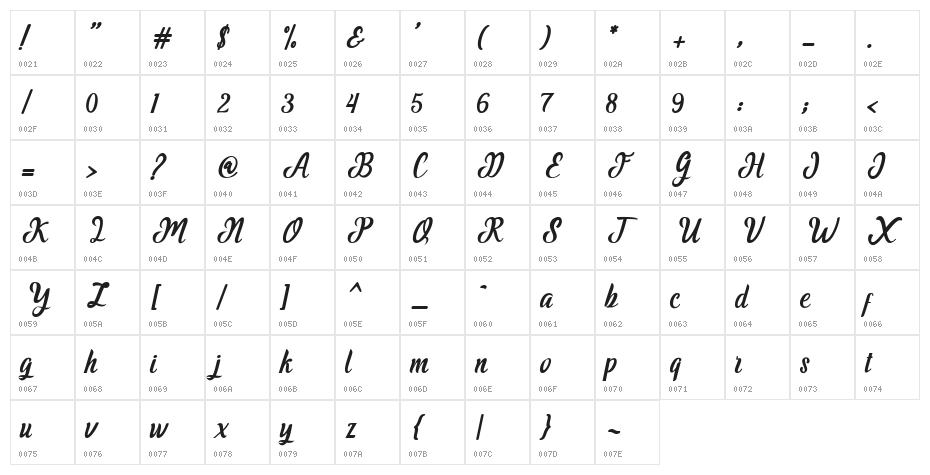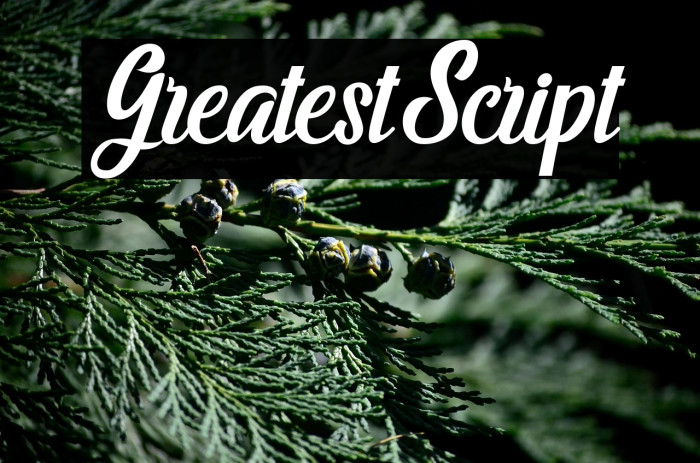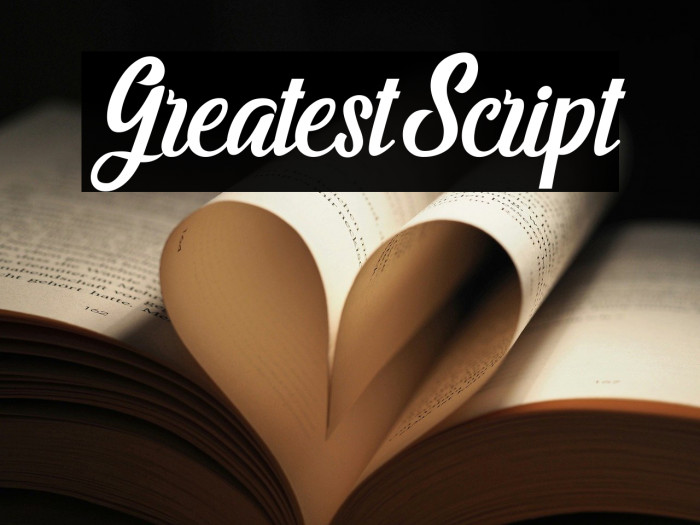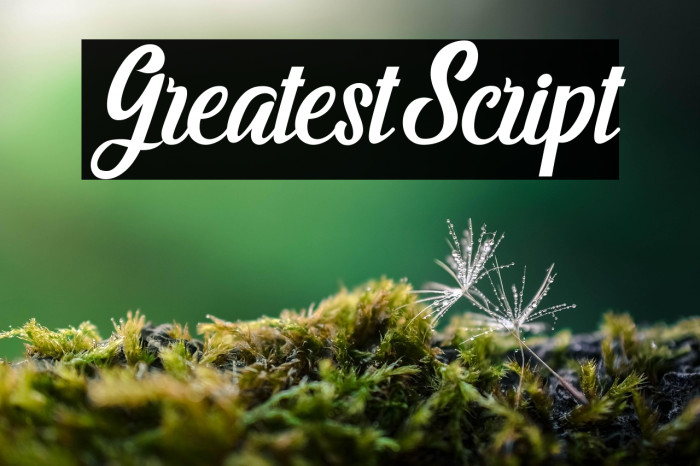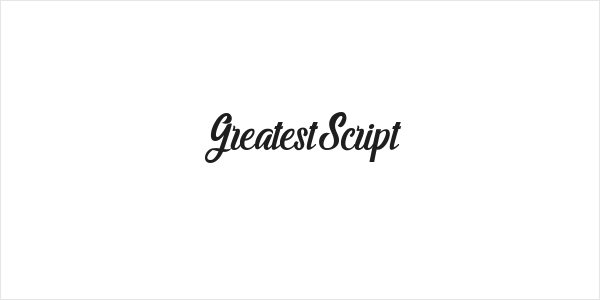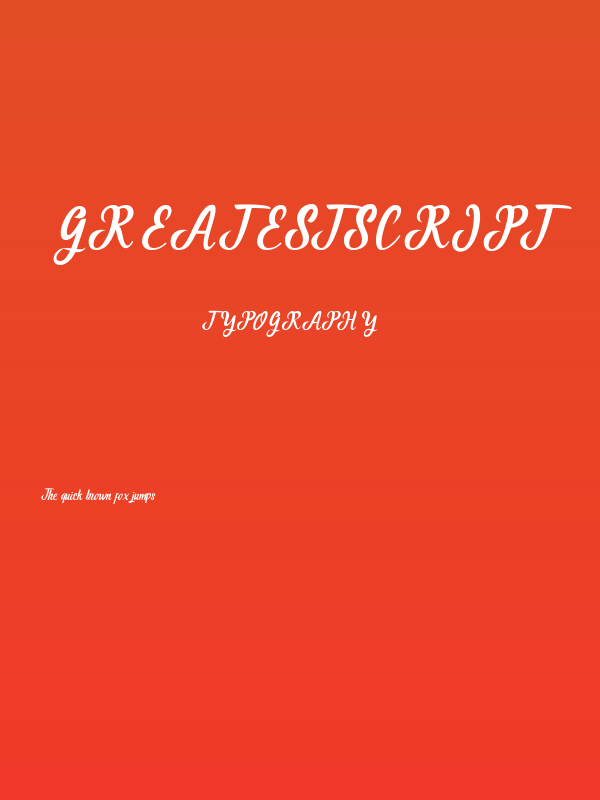
GreatestScript Font
GreatestScript Description
This elegant script font features flowing, cursive letterforms that exude a sense of sophistication and grace. The uppercase letters are slightly larger and more ornate, while the lowercase letters maintain a consistent, smooth flow. The numerals are designed to match the fluidity of the alphabet, ensuring a cohesive appearance across all characters. Special characters are crafted with the same attention to detail, making them seamlessly integrate with the rest of the typeface. The overall design is both classic and timeless, suitable for a variety of formal and decorative applications.
| Overall Style | Classic |
| Use Case | Logos, Invitations, Decorative text |
| Proposed Projects | Ideal for wedding invitations, elegant branding, greeting cards, and high-end product packaging. |